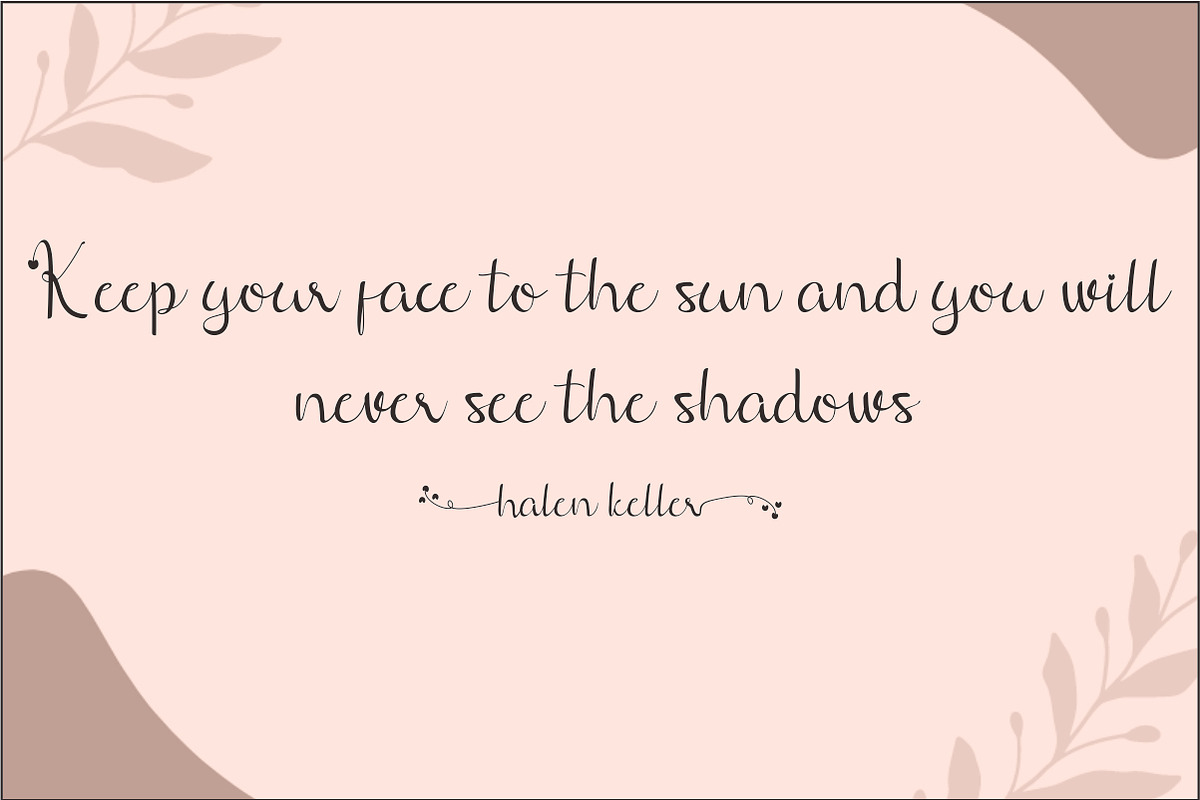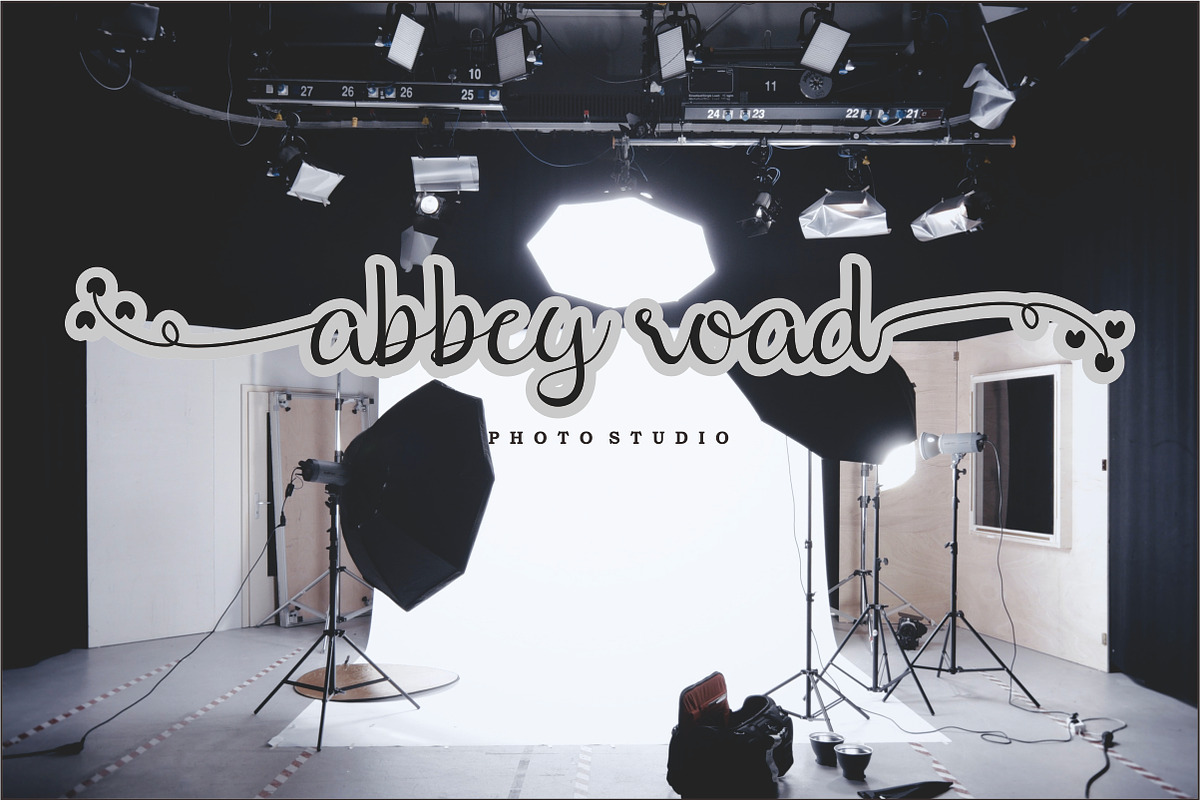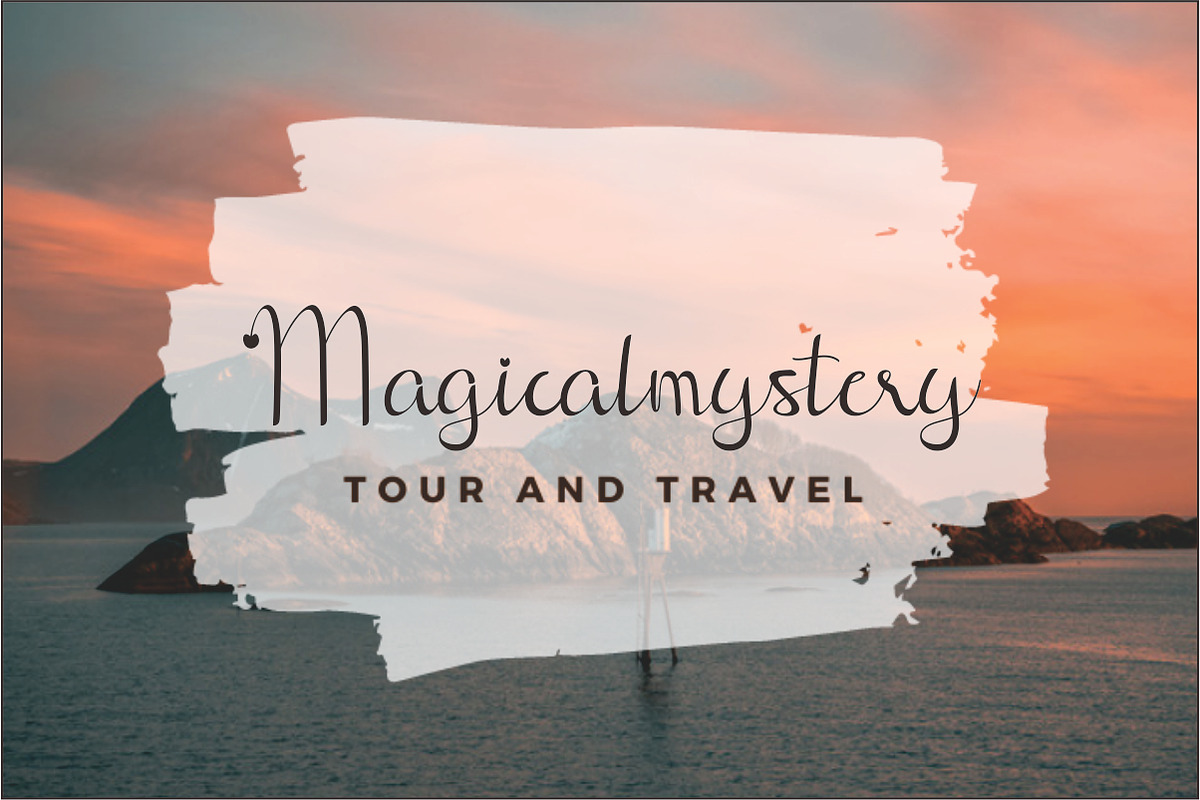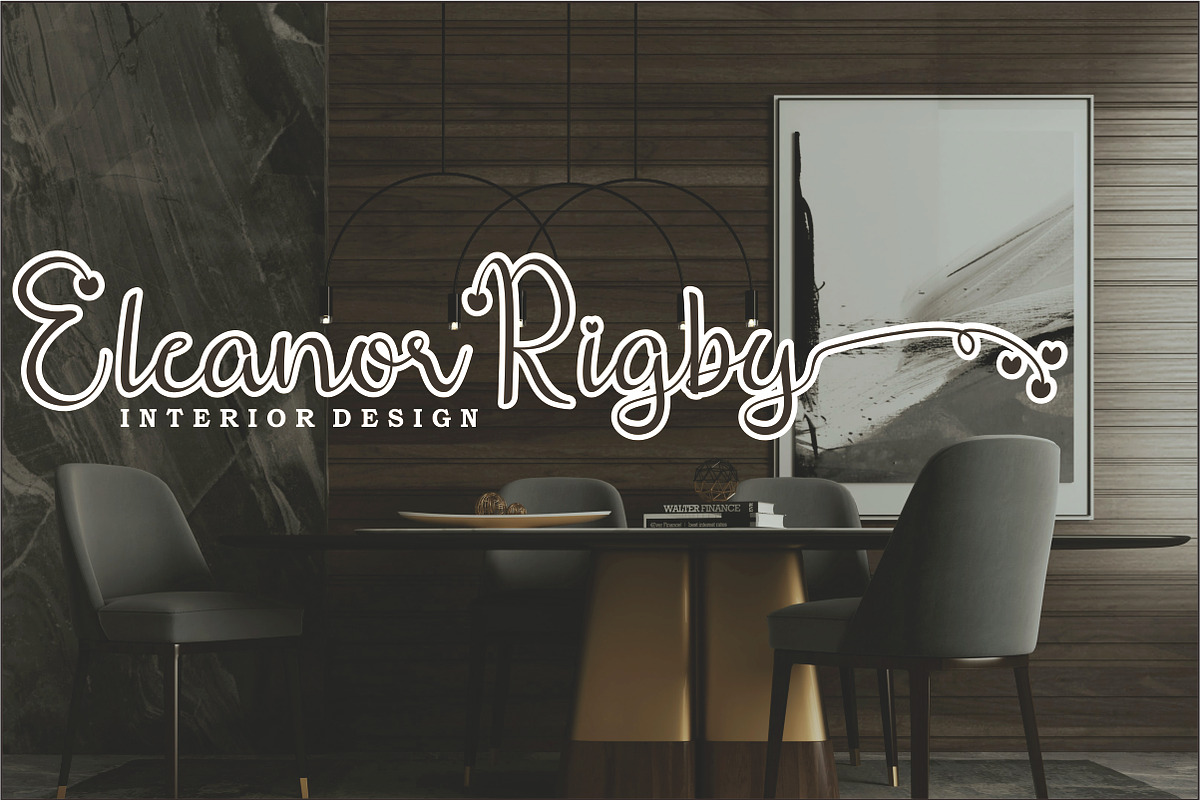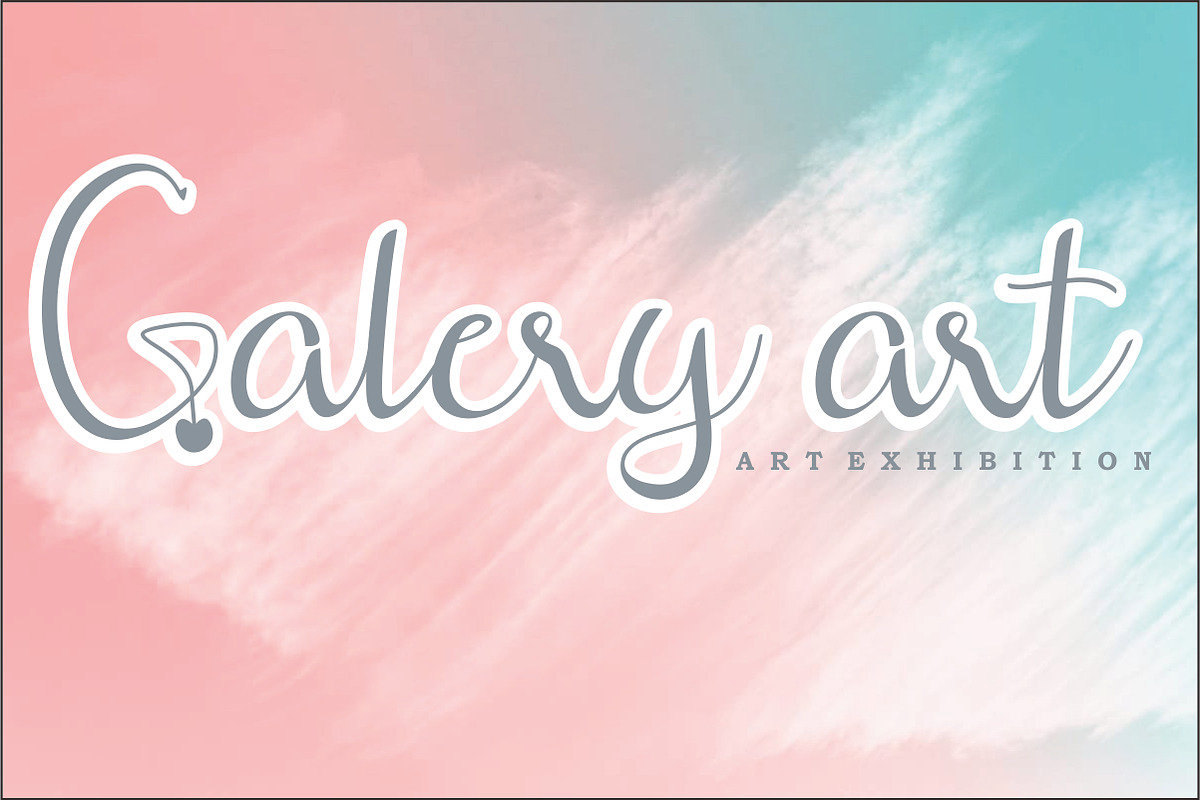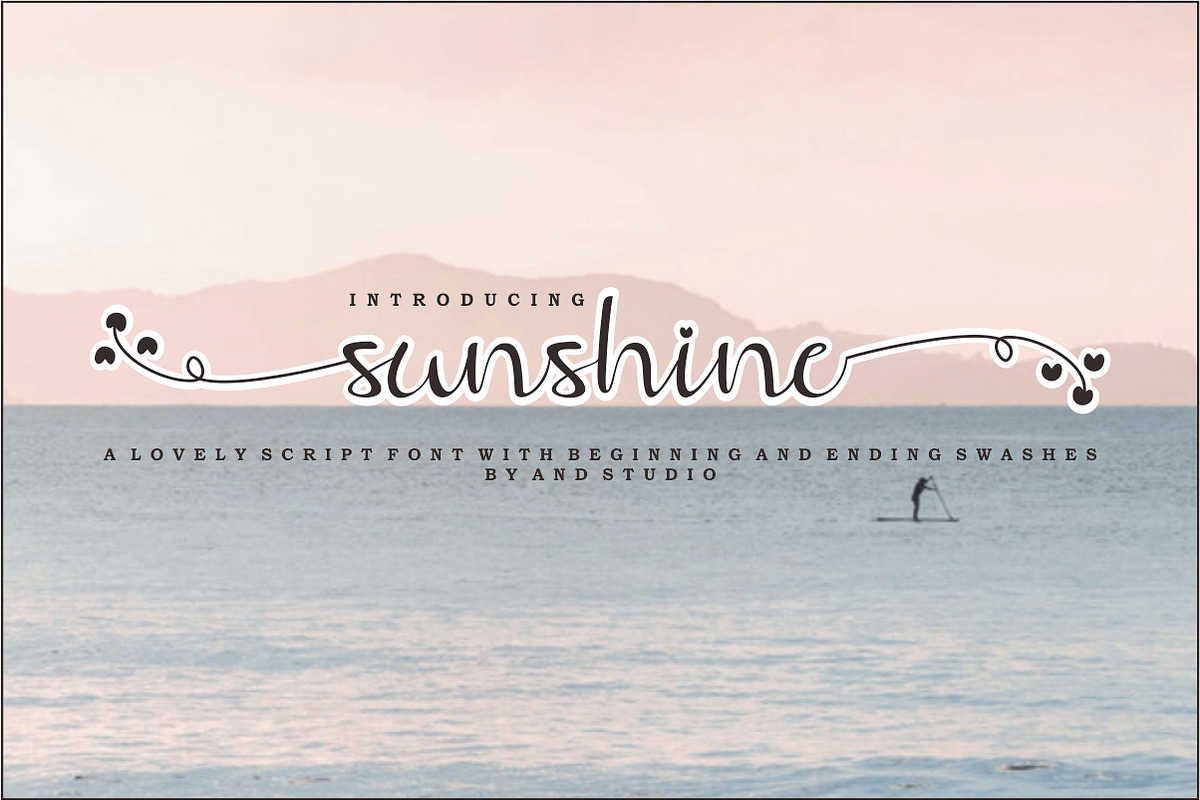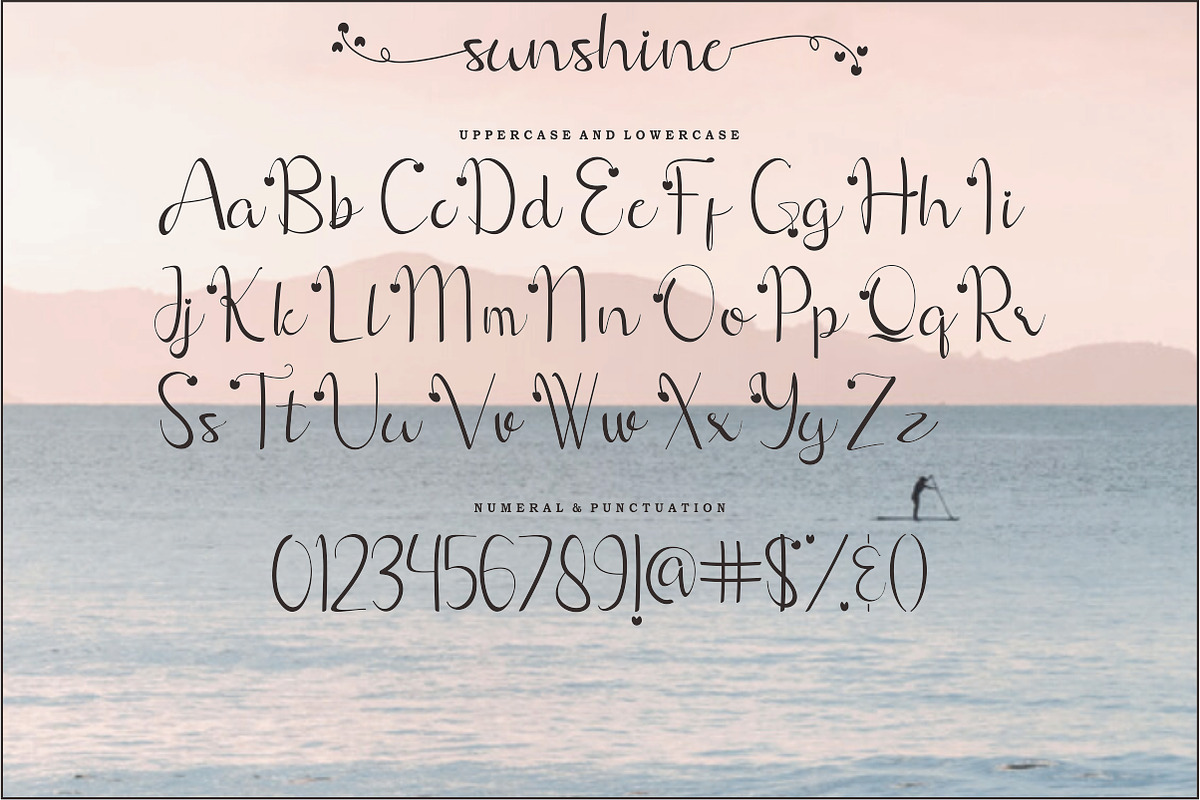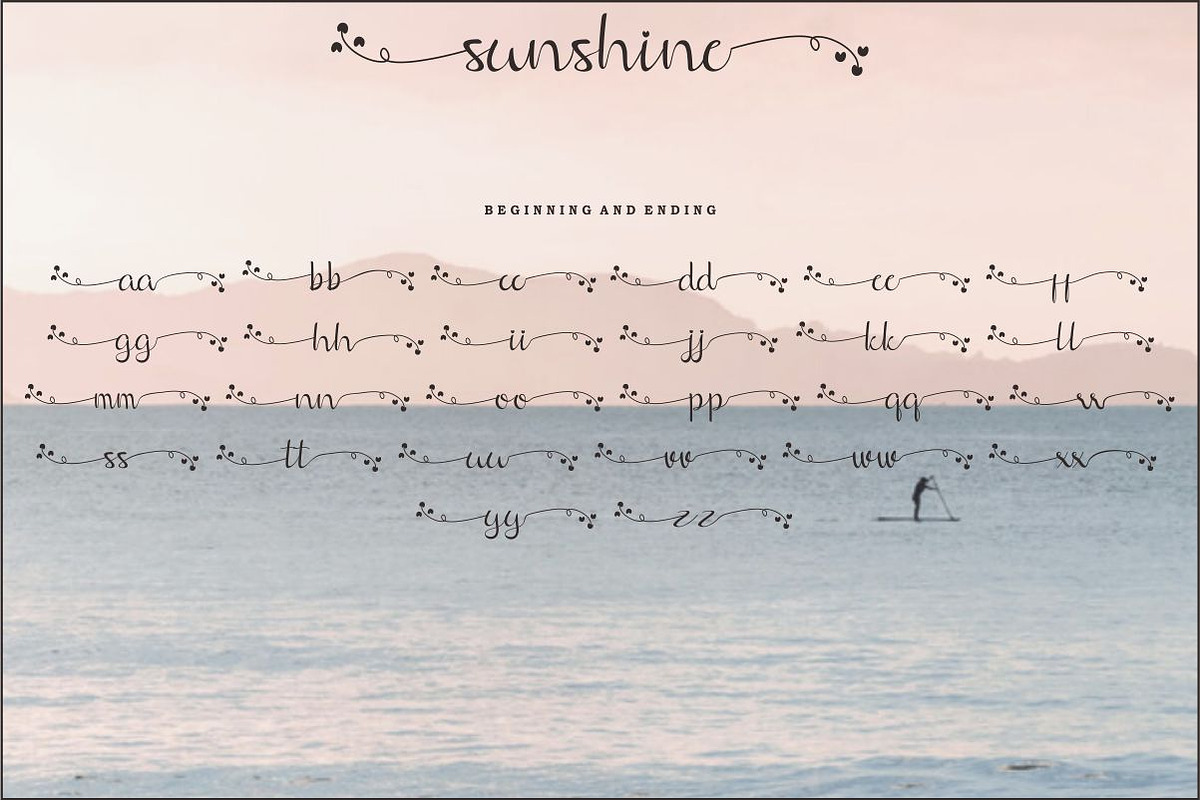
sunshine
sunshine font – is a lovely script font.
This font is made in a love style, very casual, and suitable for your various design needs. It’s perfect for logo, branding, title, social media posts, advertisements, product packaging, product designs, label, photography, watermark, special event, magazine, web designs, etc.
sunshine font ( Uppercase, Lowercase ) Ending Swashes multilingual support Ligatures If you have any questions please don’t hesitate to contact me